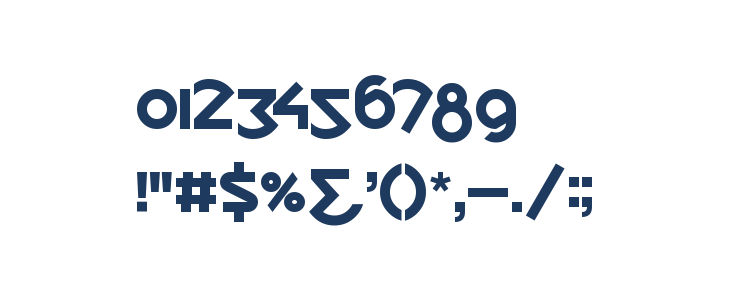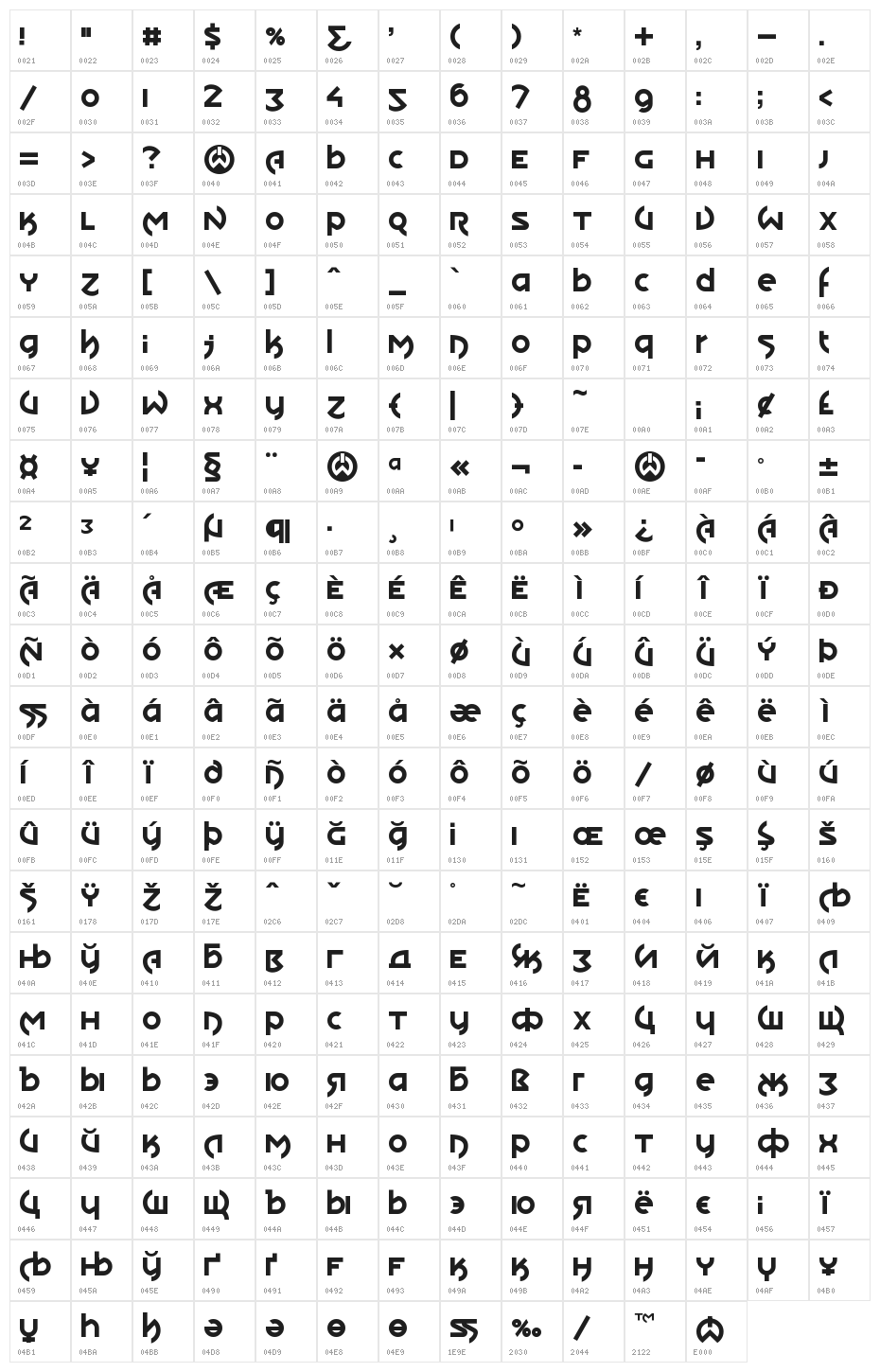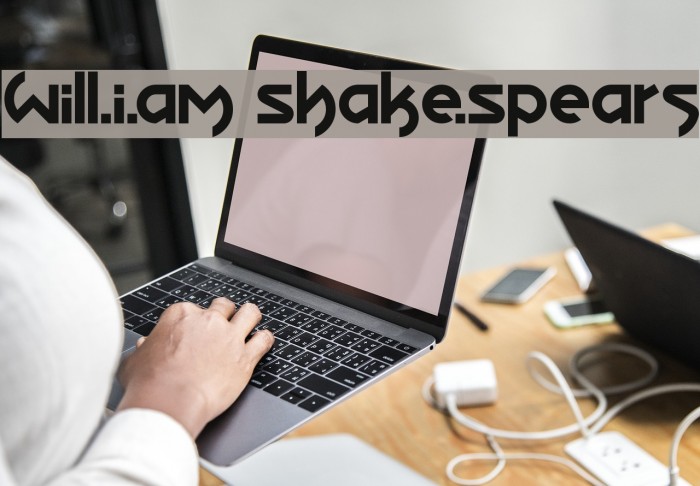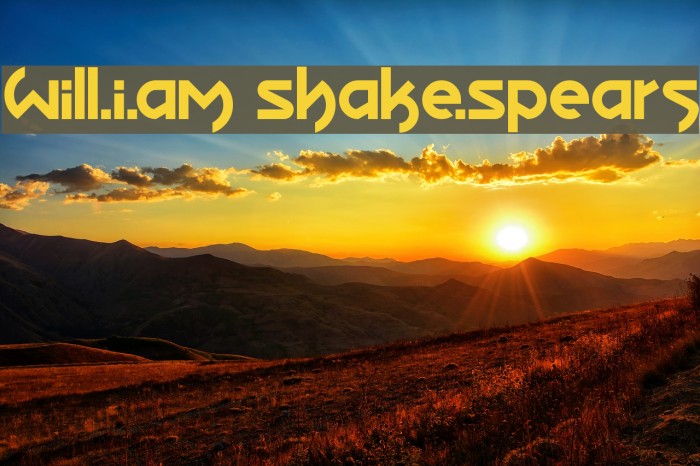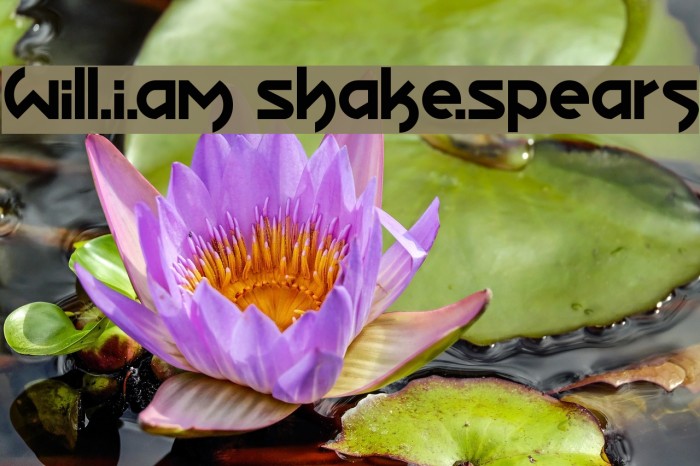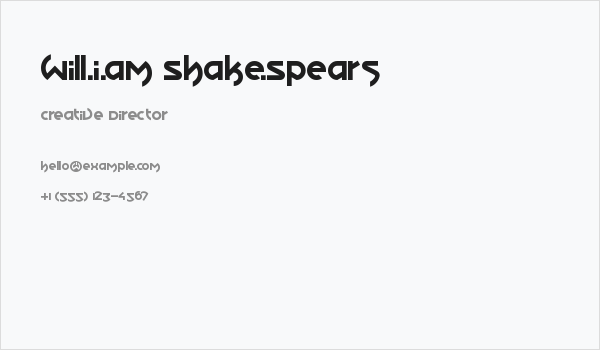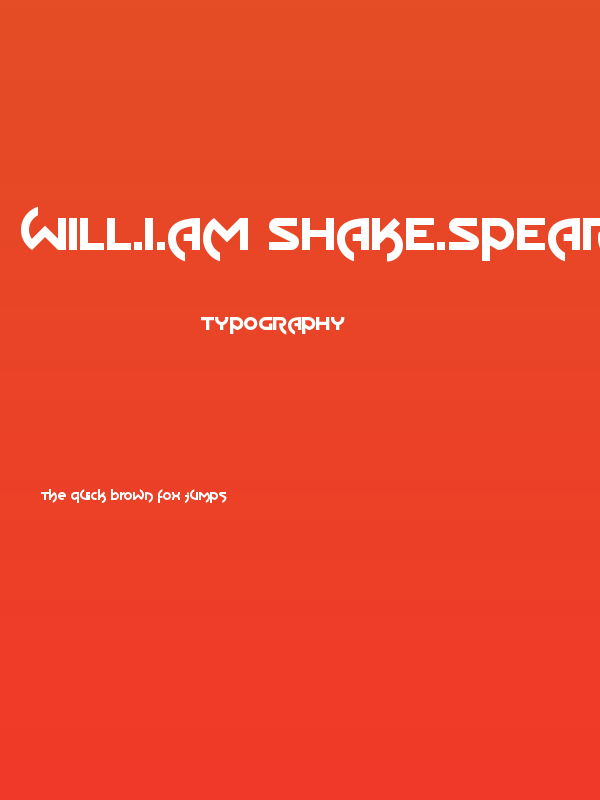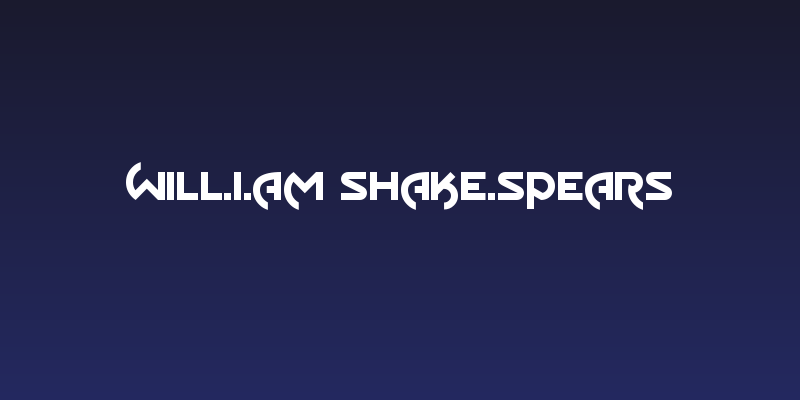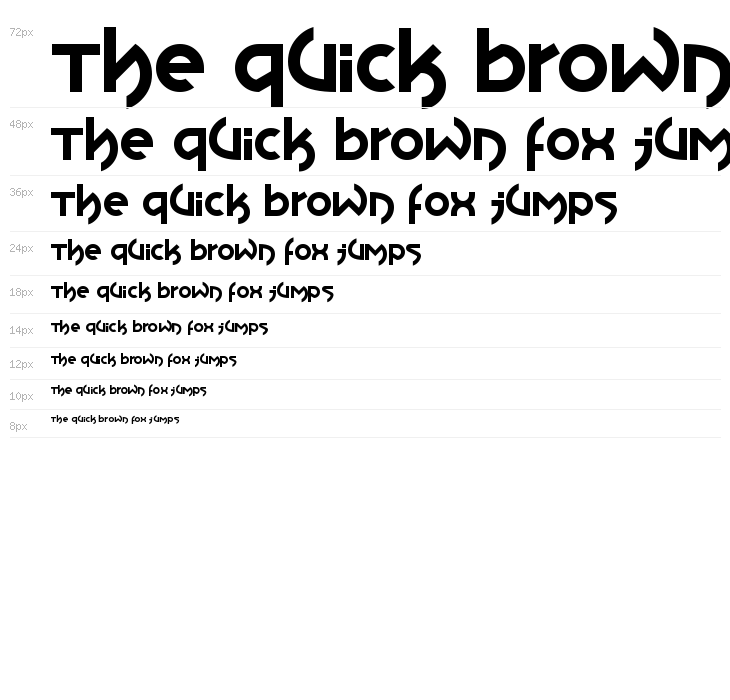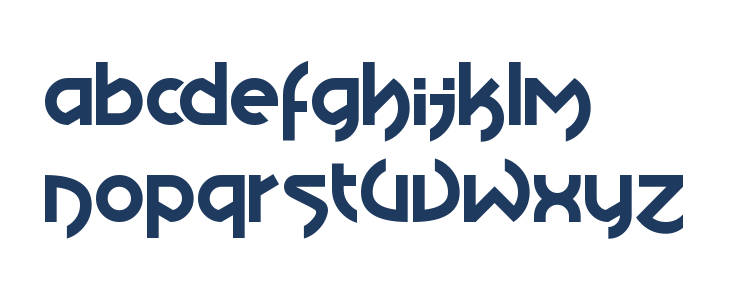
Will.i.am Shake.Spears Font
Will.i.am Shake.Spears Description
This font features a bold and geometric design with a strong emphasis on angular shapes and sharp edges. The characters are constructed with a futuristic aesthetic, incorporating unique cutouts and curves that give it a distinct and modern appearance. The uppercase and lowercase letters maintain a consistent style, with the uppercase characters exhibiting a slightly more pronounced angularity. The numerals and special characters follow the same design principles, ensuring uniformity across the entire typeface. This font's boldness and geometric structure make it highly suitable for attention-grabbing designs.
| Proposed Projects | Ideal for sci-fi themed projects, modern branding, posters, and digital media. |